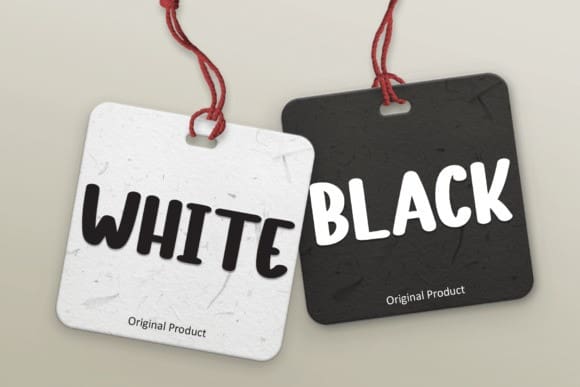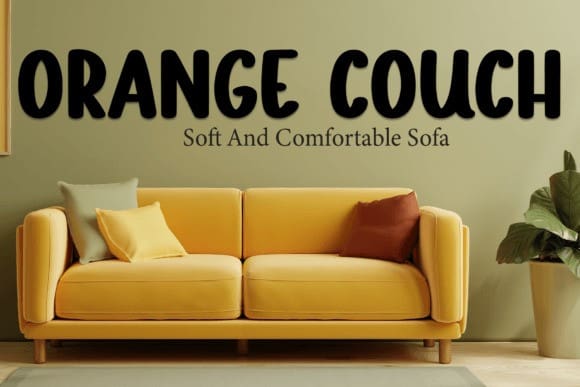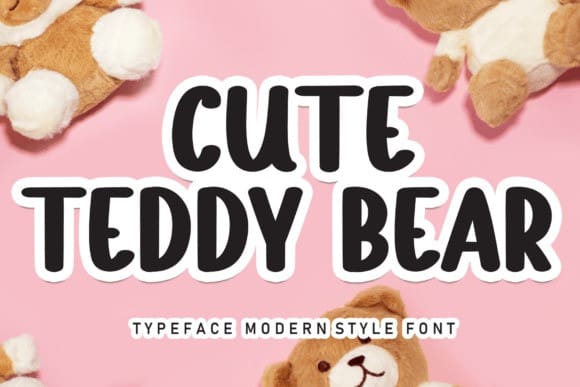
Cute Teddy Bear Font
Cute Teddy Bear font is an adorable display typeface that captures the cuddly and charming essence of a teddy bear. Each letter is designed with soft curves and playful details, evoking a sense of warmth and nostalgia. Perfect for children’s designs, baby announcements, and projects that need a touch of cuteness and innocence.